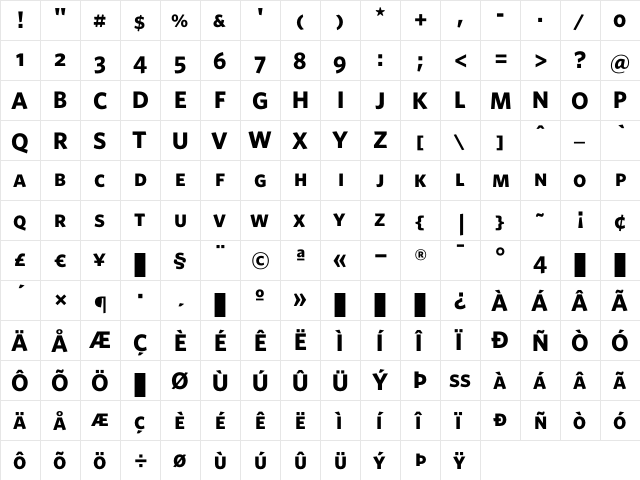
Whitney BoldSC Font Preview
Whitney BoldSC
Design Context for Whitney Typeface
Whitney is a composed and adaptable typeface that performs quietly and consistently across a wide range of design contexts. Its bold stroke weight gives it real presence on the page.